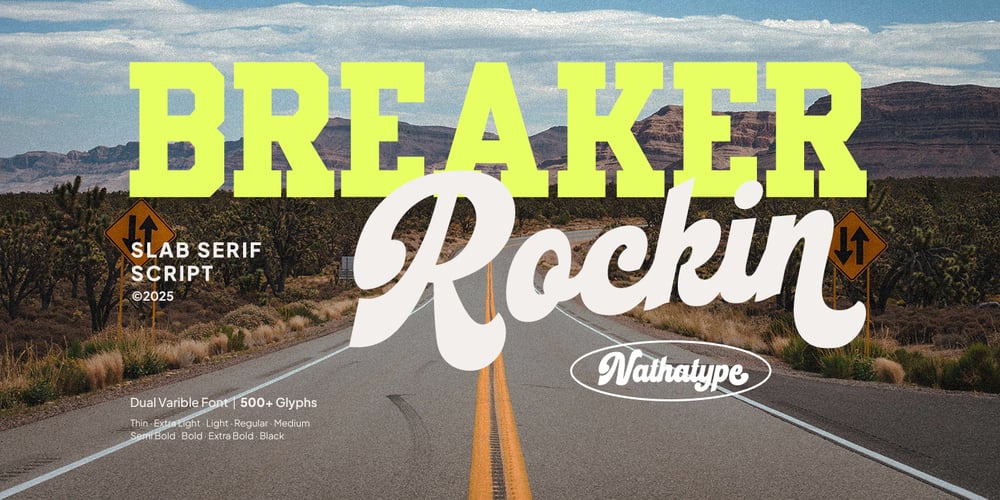
Breaker Rockin
Breaker Rockin font
Breaker Rockin Font Family was designed by Donis Miftahudin and published by Nathatype. Breaker Rockin contains 18 styles and family package options. With Breaker Rockin, you will not have problems in terms of lack font options.This font family presents a vintage display to your designs. The display font’s capital letters make it legible, while the script font shows curvy, thick strokes. You can mix this harmonic fonts for lovely design results. Additionally, this duo font has interesting features to maximize your designs.Features: Stylistic Sets Ligatures Multilingual Supports Numerals and Punctuations PUA Encoded Breaker Rockin fits to be used for many design projects, such as poster, logo, book cover, branding, heading, printed product, merchandise, quotes, social media campaign, etc. Learn more about how to use it by seeing the font preview.Thank you for purchasing our fonts. Please don’t hesitate to contact us, if you have any further question or issues. We’re happy to help. Happy Designing.